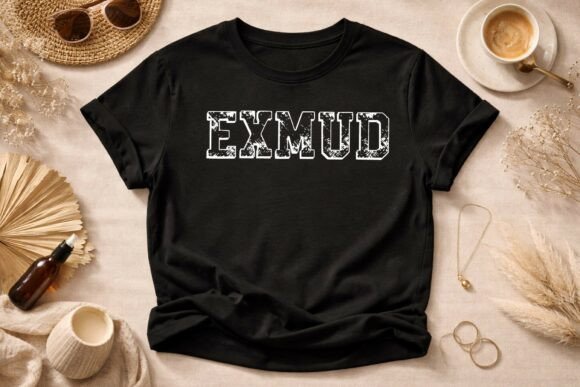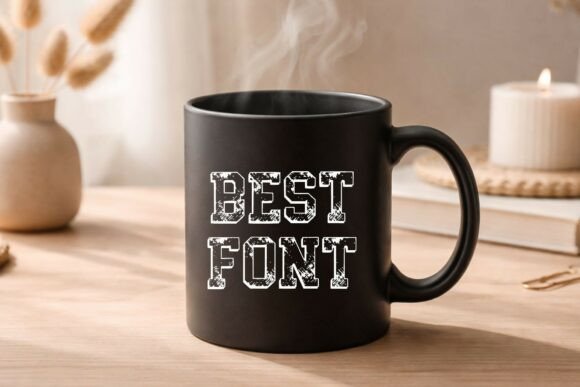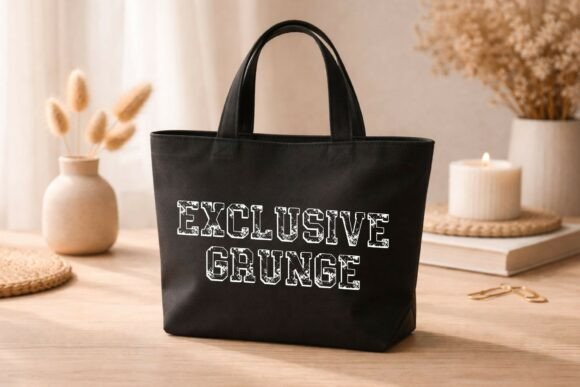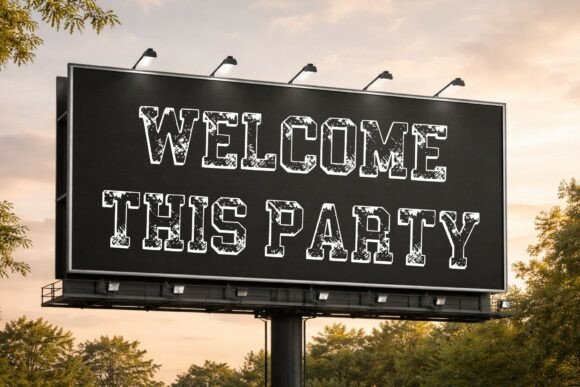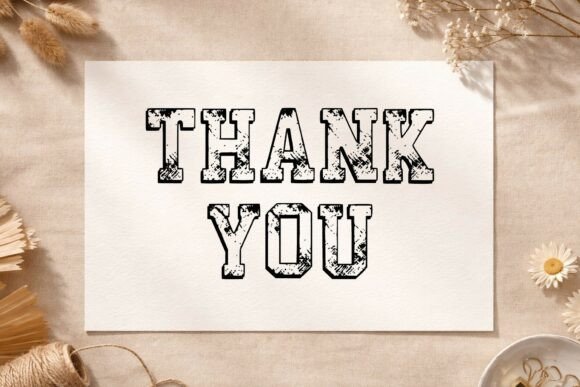
Get Ready to Unleash Your Inner Grunge Designer
Have you ever stared at a blank canvas, feeling the urge to create something raw and edgy? The perfect storm of creativity strikes, and you’re driven to craft a design that screams rebellion and attitude. It’s in these moments that the right font can be the game-changer, setting your vision ablaze with an unbridled energy.
Enter the Black Distressed Font, a bold grunge outline font that embodies the spirit of the underground. With its rugged distressed texture and strong collegiate-style letterforms, this font is the ultimate tool for designers seeking to inject a vintage, worn effect into their projects. Whether you’re crafting retro posters, designing streetwear branding, or creating bold headline typography, the Black Distressed Font delivers a powerful visual impact that’s sure to leave a lasting impression.
Black Distressed Font Key Features
- Font Family: The Black Distressed Font is a distressed, rough-textured font that adds a unique touch to designs.
- Unique Characteristics: The distressed texture and rough edges give the font a worn, vintage look, perfect for designs that require a nostalgic or edgy feel.
Designer Review: Black Distressed Font
Overall, I think Black Distressed Font has some great qualities that make it a solid choice for certain projects. ✨ Here are a few things that work well:
- High contrast: The black color and distressed texture provide excellent contrast with most backgrounds, making it easy to read.
- Edgy feel: The distressed texture gives the font a unique, edgy feel that’s perfect for bold, attention-grabbing headlines.
- Good for digital use: The font’s distressed texture looks great on digital screens, where it can add a touch of grit and realism.
However, there are also some limitations to consider: ⚠️
- Limited legibility: The distressed texture can make it difficult to read the font at smaller sizes or in certain situations.
- Not suitable for body text: The font’s distressed texture is best used for headlines or titles, as it can be overwhelming for large blocks of body text.
- May not be suitable for print: While the font looks great on digital screens, it may not be the best choice for print projects, where the distressed texture may not translate as well.
In my opinion, Black Distressed Font is a solid choice for projects that require a bold, attention-grabbing headline. However, it may not be the best choice for projects that require clear, readable body text.
The Black Distressed Font is ideal for creating a gritty, edgy look in various design contexts, such as:
- Rock music posters
- Distressed denim brand logos
- Edgy social media graphics
Alternatives to Black Distressed Font
Fontin is a sans-serif font with a distressed look. It has a more subtle, rough texture compared to Black Distressed Font. Fontin is suitable for use in headings and titles, adding a touch of elegance to your design.
Comparison: Fontin is more refined and less aggressive in its distressed look, making it a better choice for designs that require a more subtle, sophisticated feel.